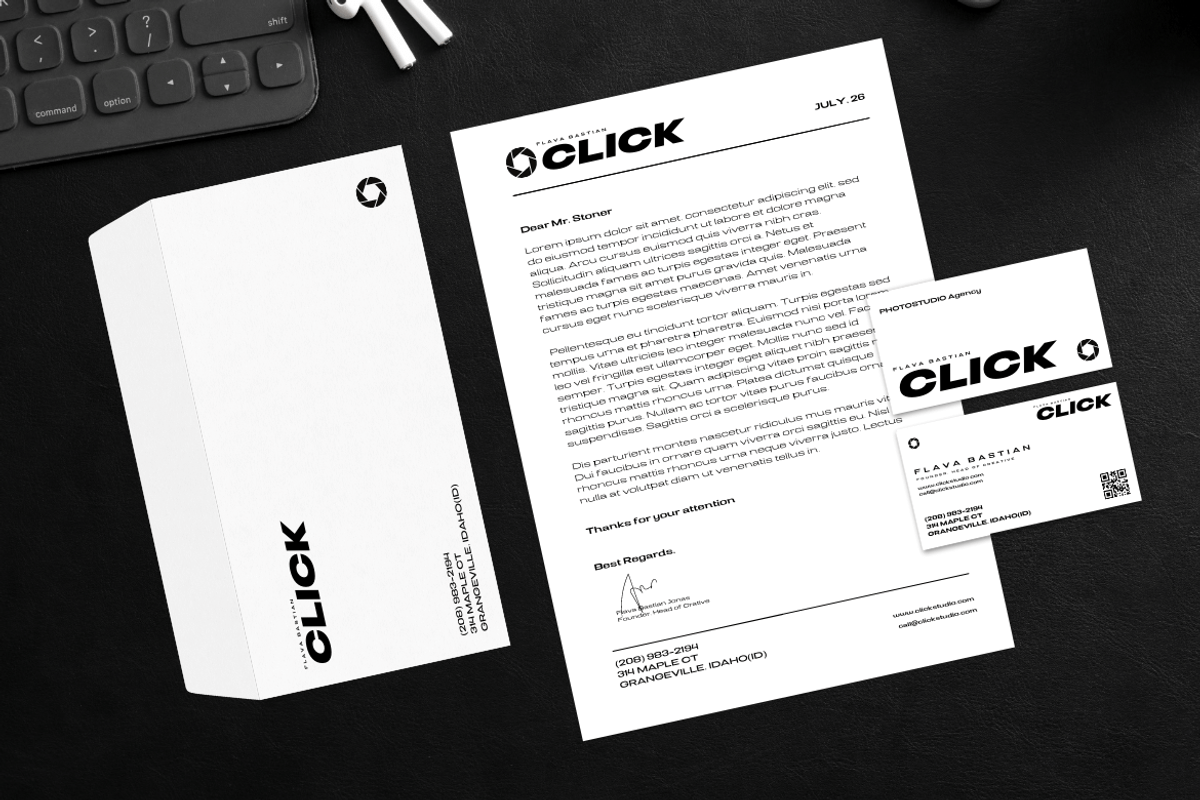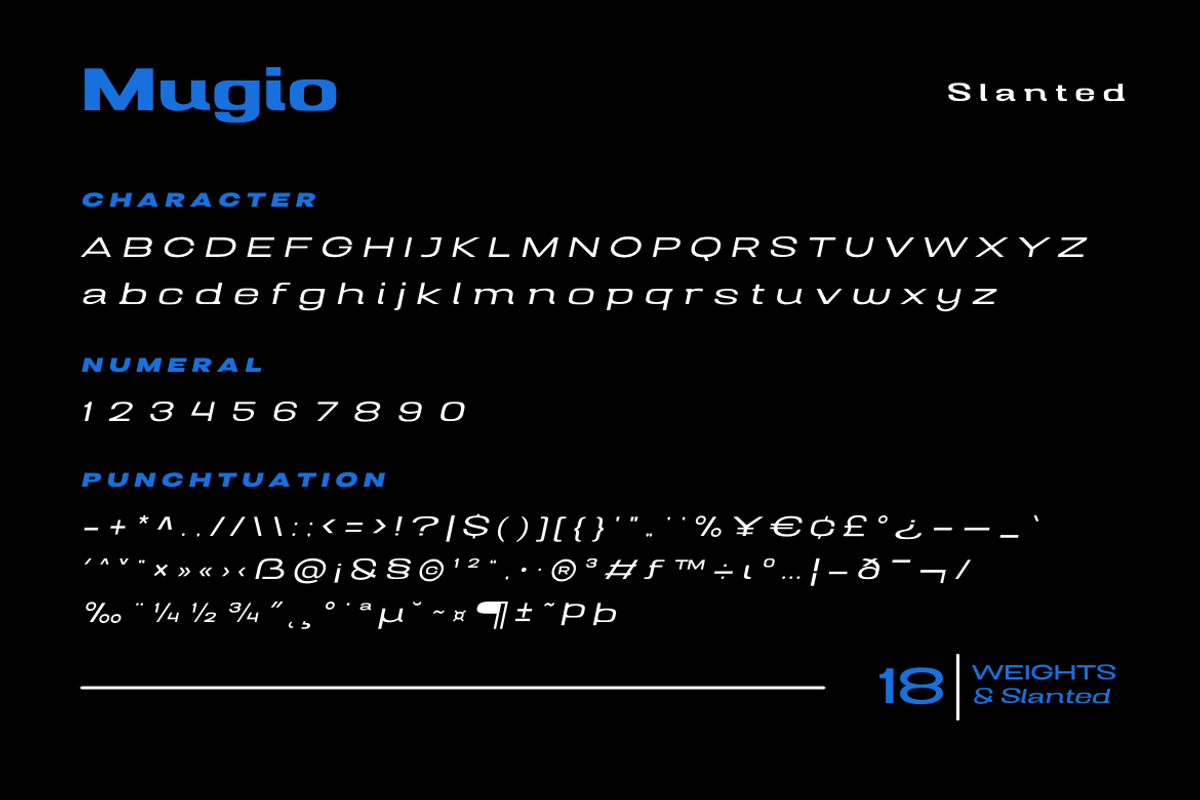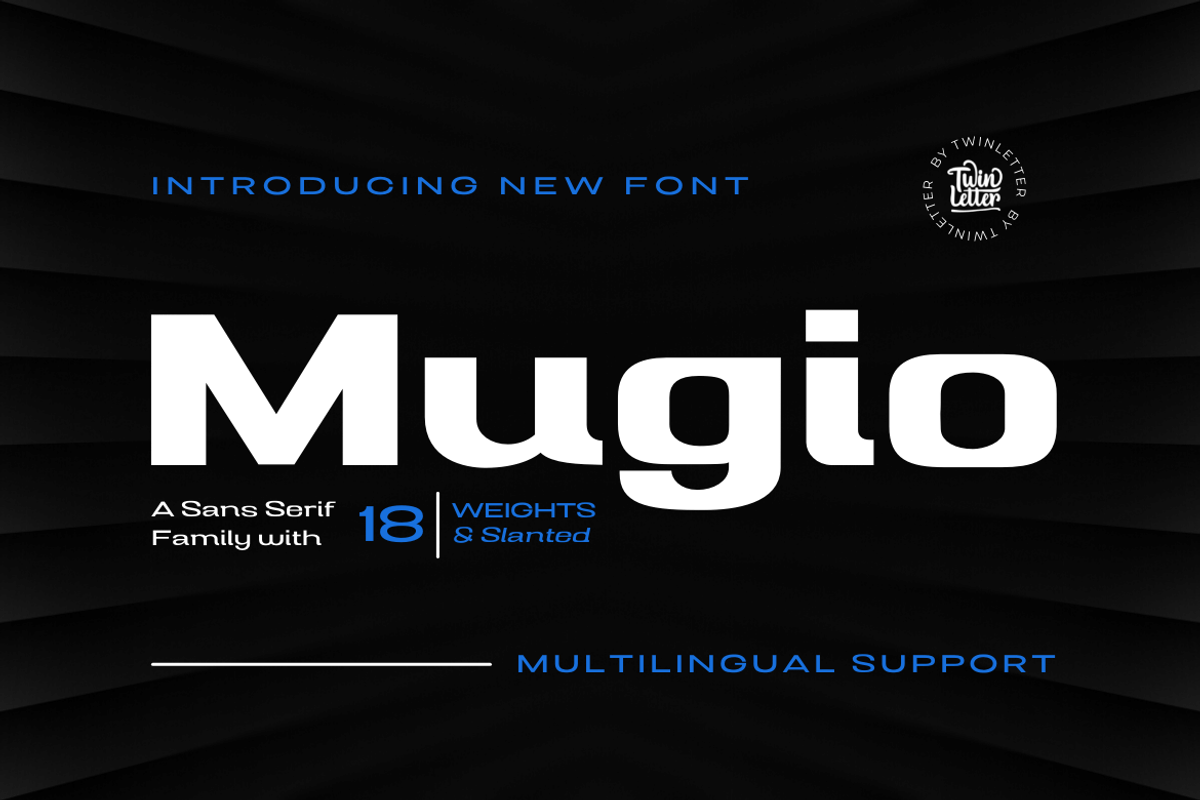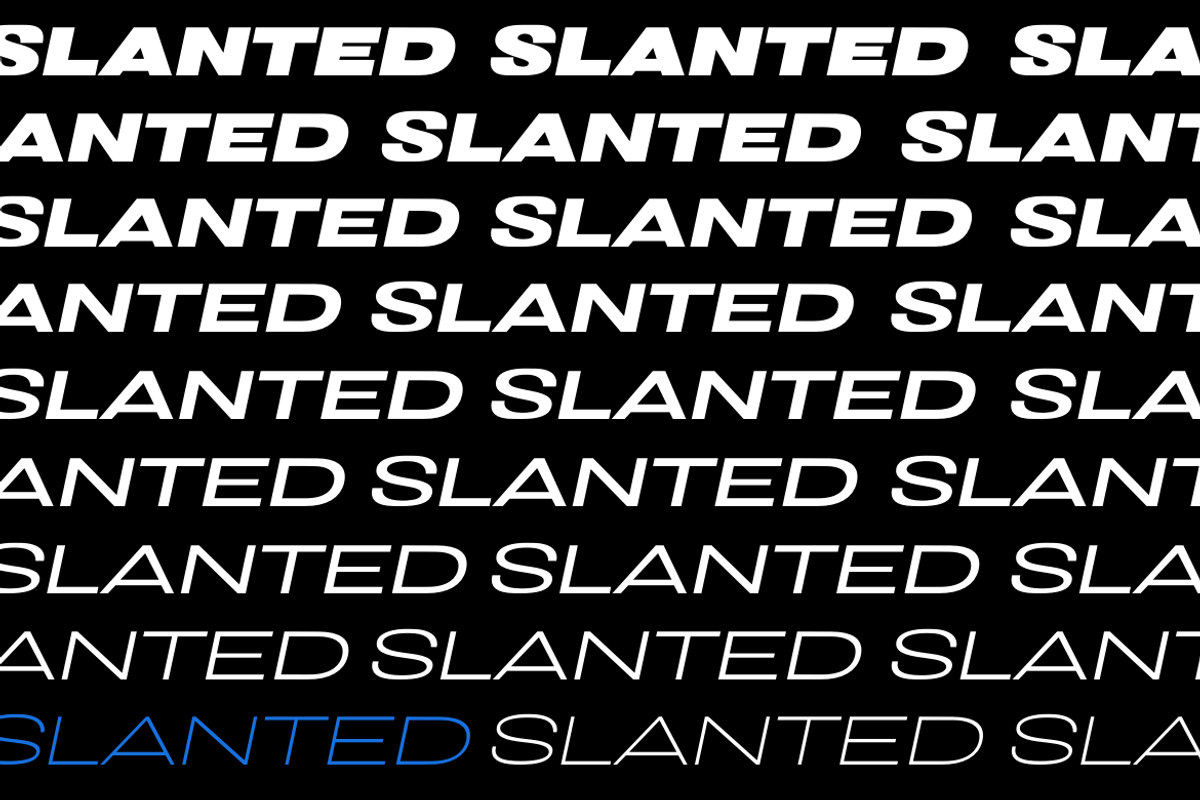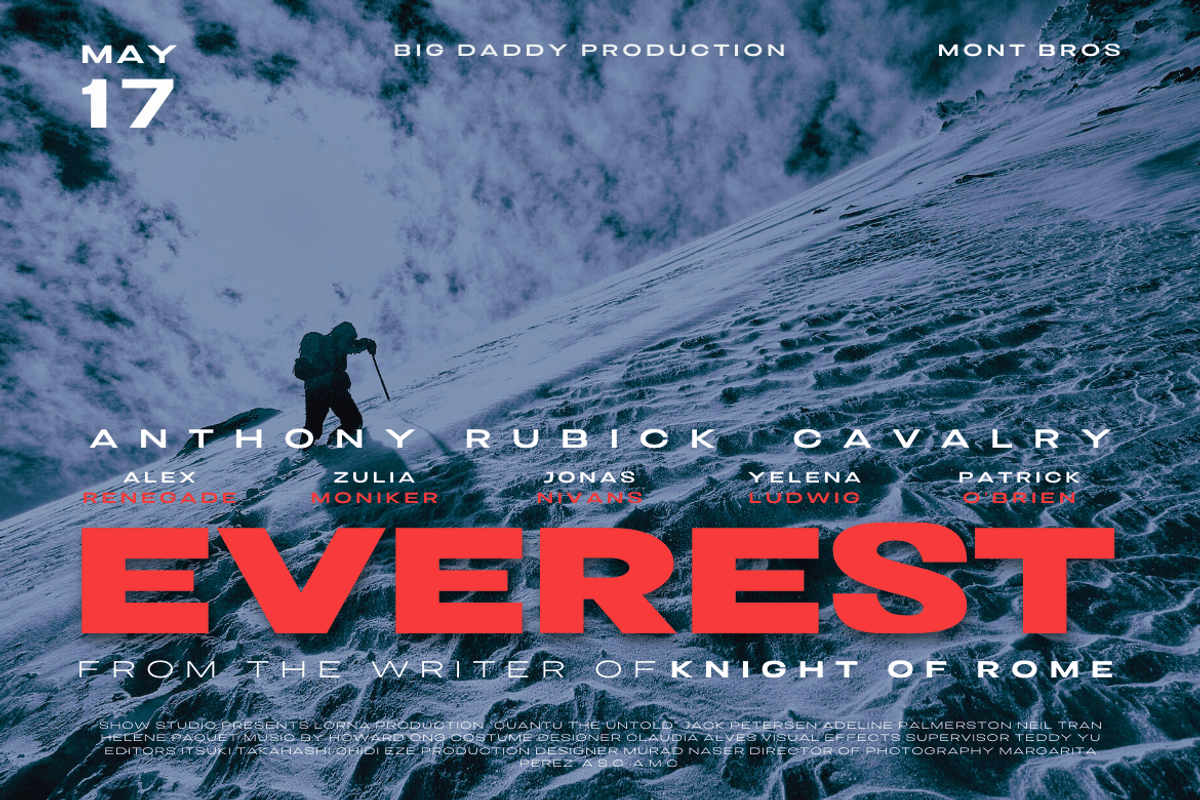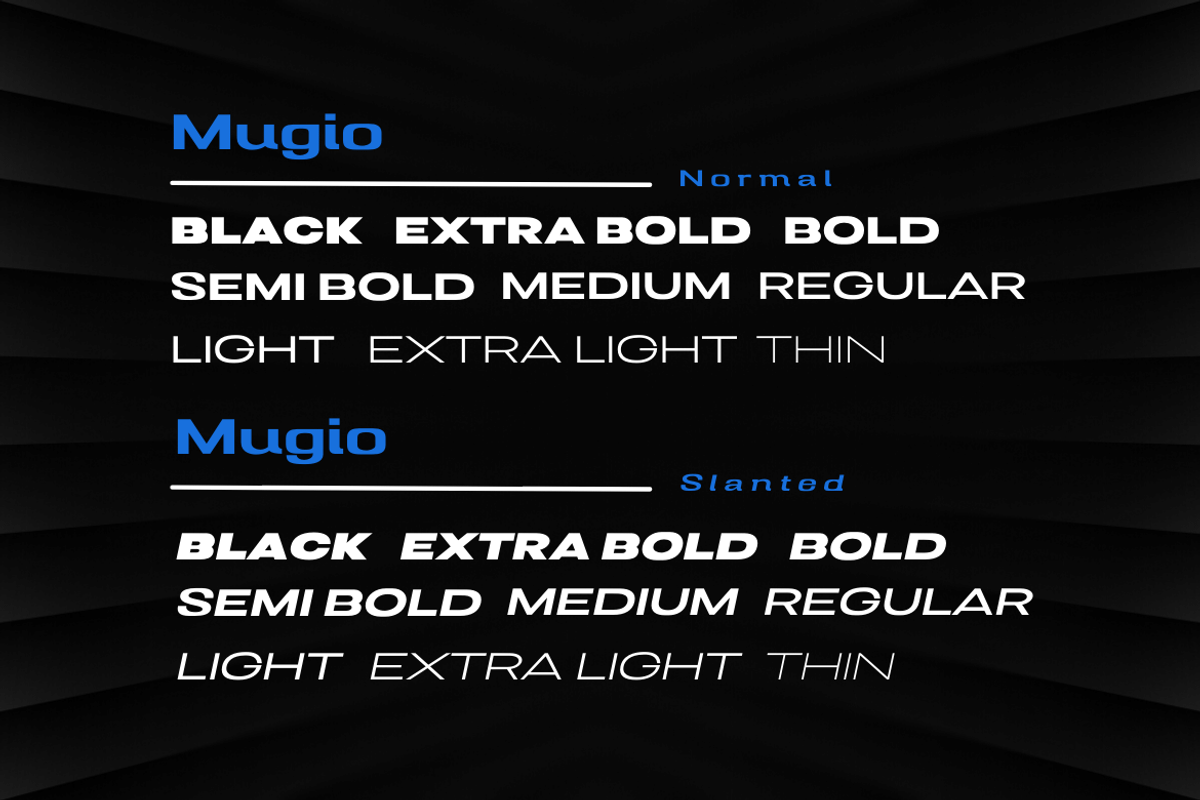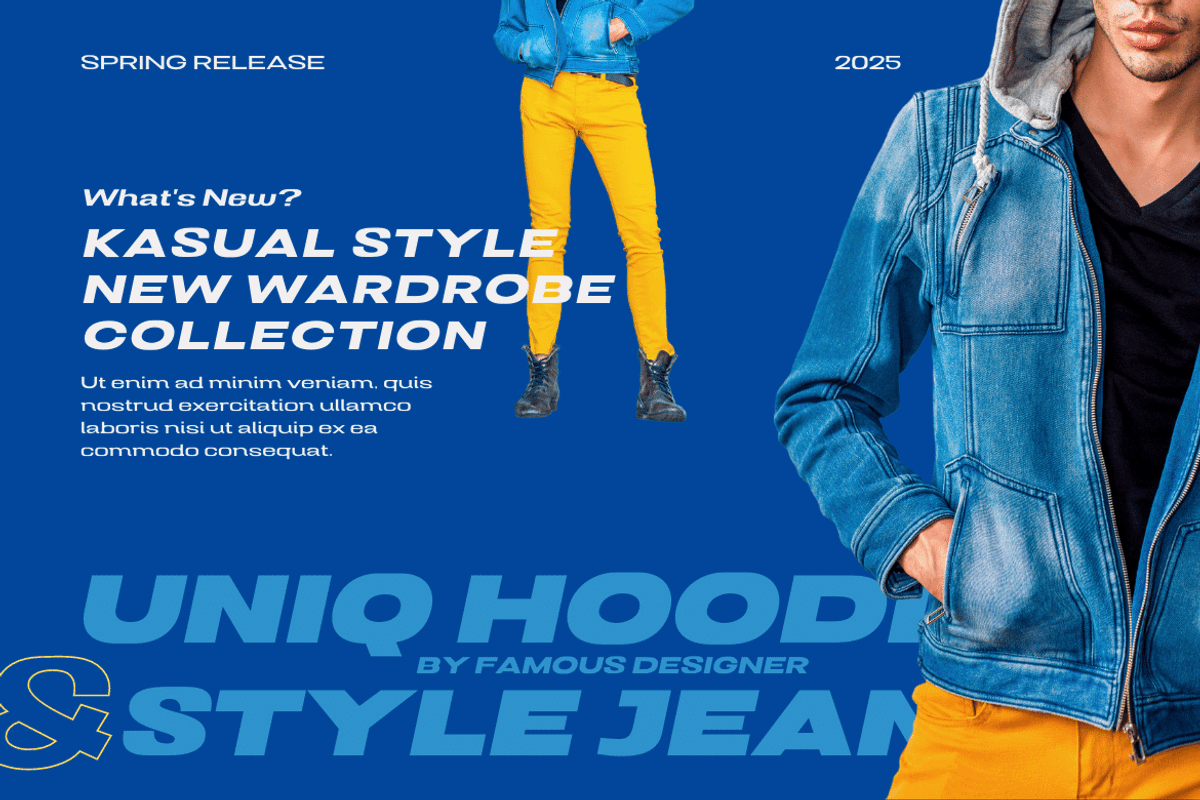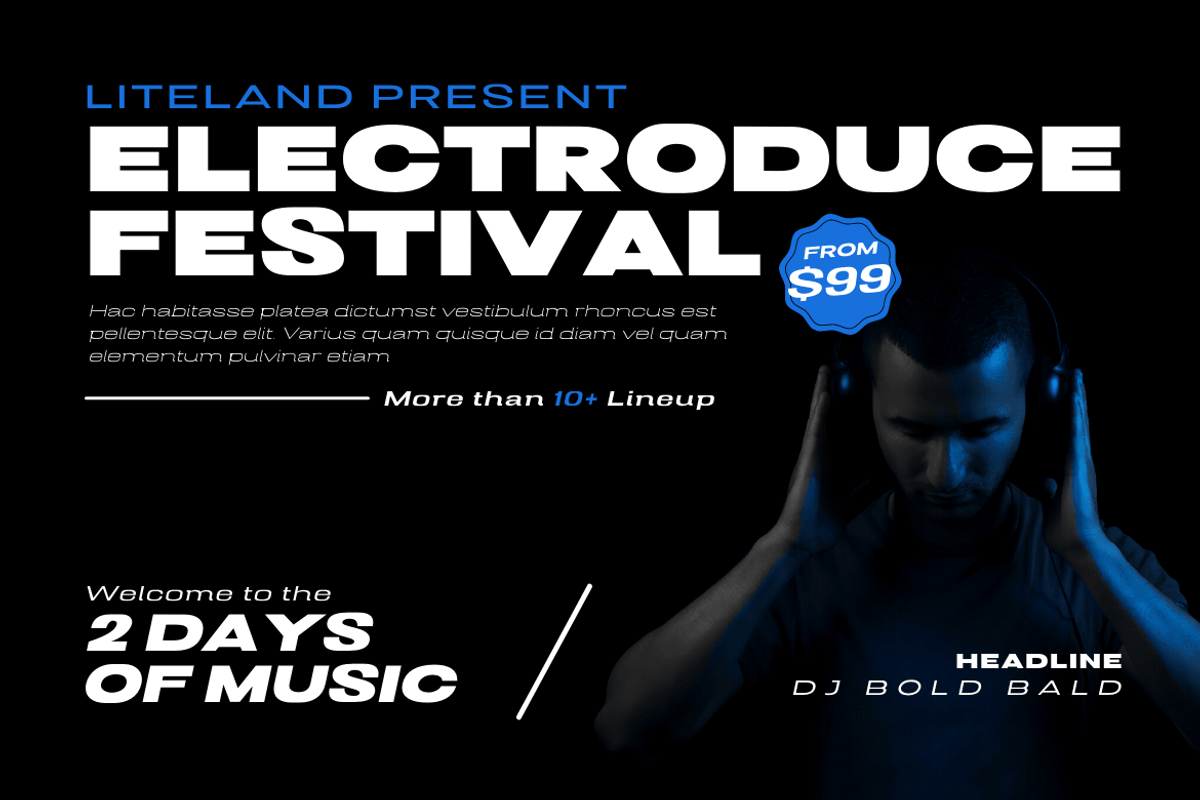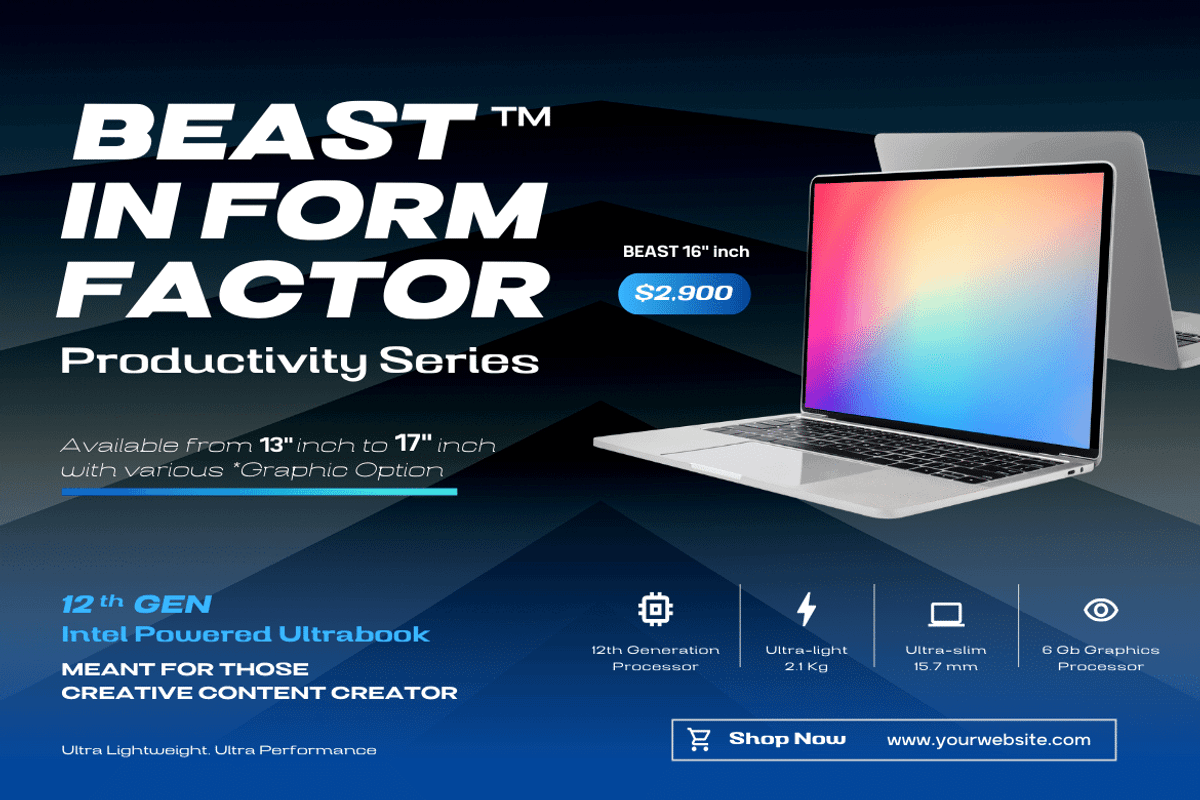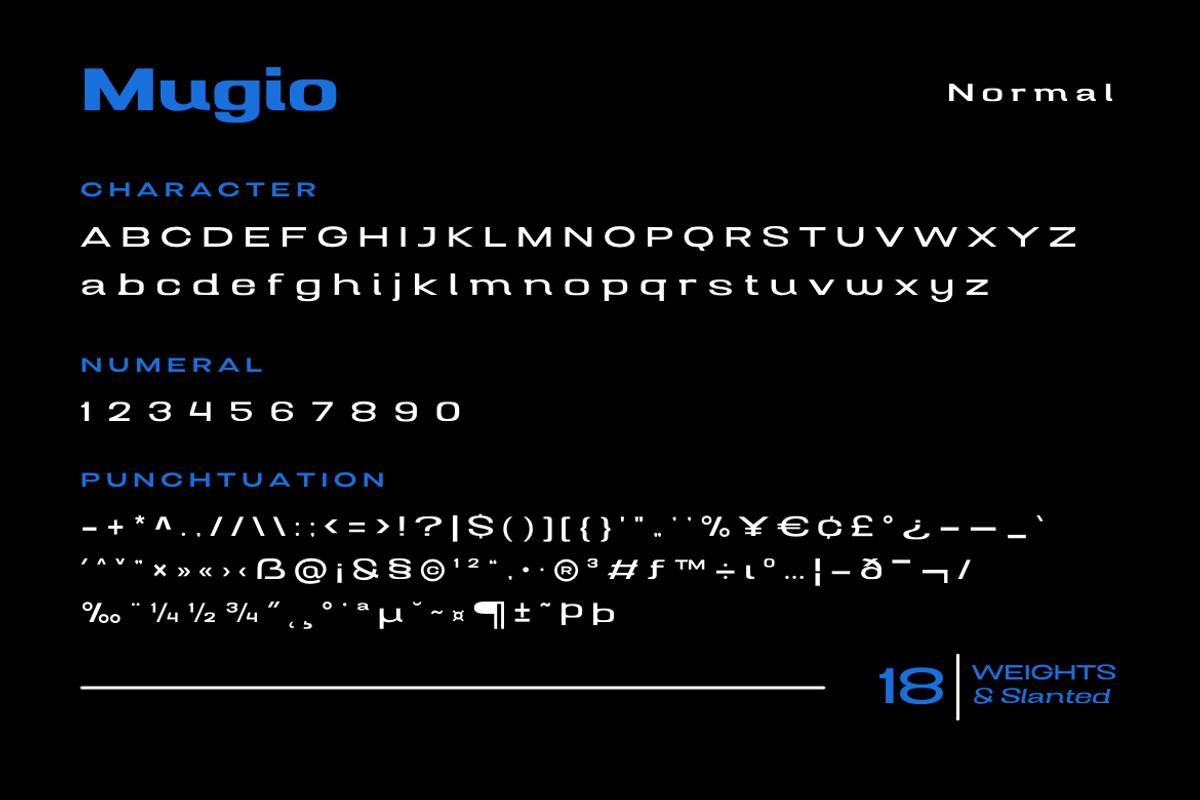
Mugio
Mugio is the latest addition to our San Serif font family.
Mugio is a one-of-a-kind font that can be used for any project. It includes a lot of qualities that make it particularly powerful and handy for making elaborate designs. This font’s slanted letters and curves make it ideal for logos, flyers, posters, and a wide range of other typographic projects.
of course, your various design projects will be perfect and extraordinary if you use this font because this font is equipped with a font family, both for titles and subtitles and sentence text, start using our fonts for your extraordinary projects.